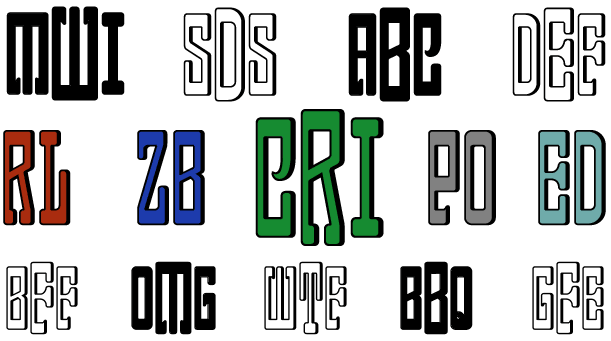
Neuport Monogram
About Neuport Monogram
The inspiration source for Neuport Monogram is the 1934 Book of American Types by American Type Founders. Found in that specimen book was a sophisticated two-color Art Deco style monogram called Newport Monograms which was available in limited size metal…